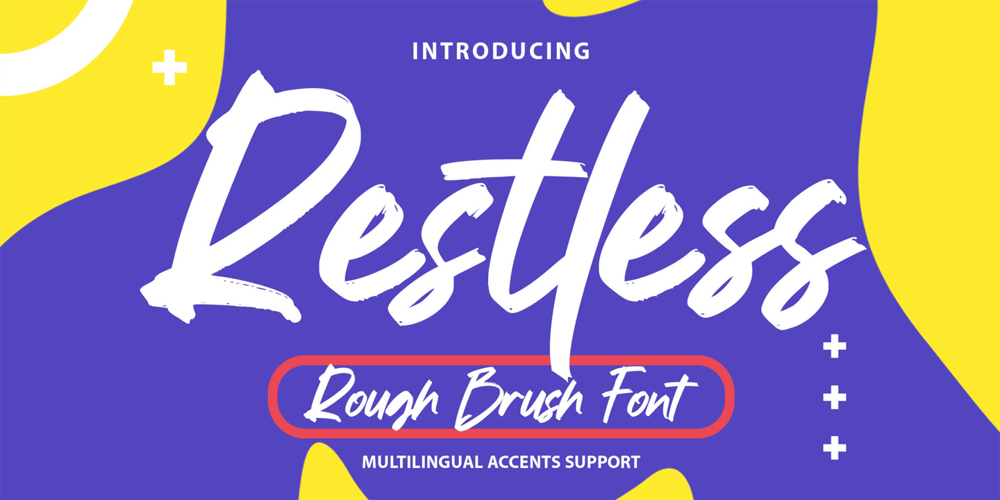
Restless Font Family was designed by Abdul Malik Wisnu, Anang Fibriyanto and published by Gassstype. Restless contains 1 styles and family package options. Hello Everyone, introduce our new product Font Restless is a Rough Brush Font.This is a Textured Natural Style and classy style with a clear style and dramatic movement.This font Restless is great for your next creative project such as logos, printed quotes, invitations, cards, product packaging, headers, Logotype, Letterhead, Poster, Design this font is great for your creative projects such as watermark on photography, and perfect for logos & branding, invitation,advertisements,product designs, stationery, wedding designs,label ,product packaging, special events or anything that need handwritting taste.That is has charming, authentic and relaxed characteristic more natural look to your text You can activate Ligatures OpenType panel.